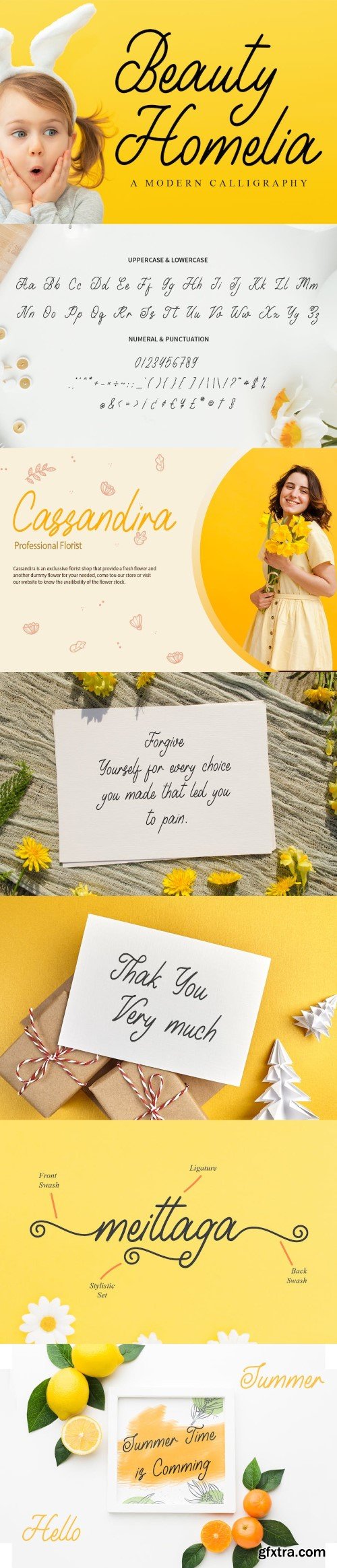
美丽布道 - 单线手写体字体
Beauty Homelia feels equally charming and elegant. It looks stunning on wedding invitations, thank you cards, quotes, greeting cards, logos, business cards and every other design that needs a customized touch.
Each Font Has:
- Modern Monoline Font
- Beautiful Swash (Ending tail)
- Beautiful Titling (Beginning tail)
- Special Ligatures
- Multilingual Support